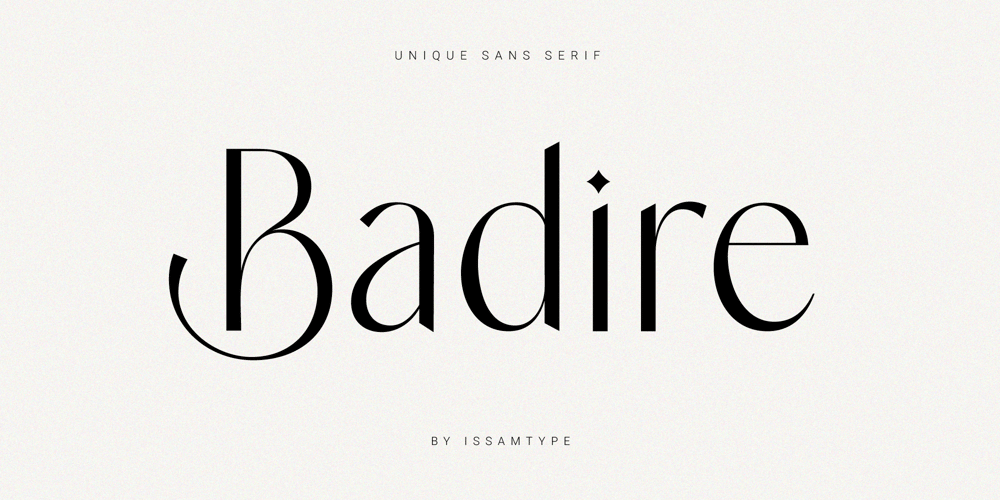
Badire Font Family was designed by Issam Boufelja and published by Issam Type. Badire contains 4 styles and family package options. Badire is a beautiful and unique sans-serif font that is perfect for wedding invitations, branding, logos, product packaging and so much more. With its clean lines and distinctive design, Badire offers endless creative possibilities.It comes in regular, italic, round, and round italic font styles, and includes uppercase and lowercase letters, numbers, punctuation, ligatures, alternates, and multilingual support.”OpenType Features Kerning Alternates Ligatures Stylistic Sets If you have any questions, please feel free to get in touch.Thank you